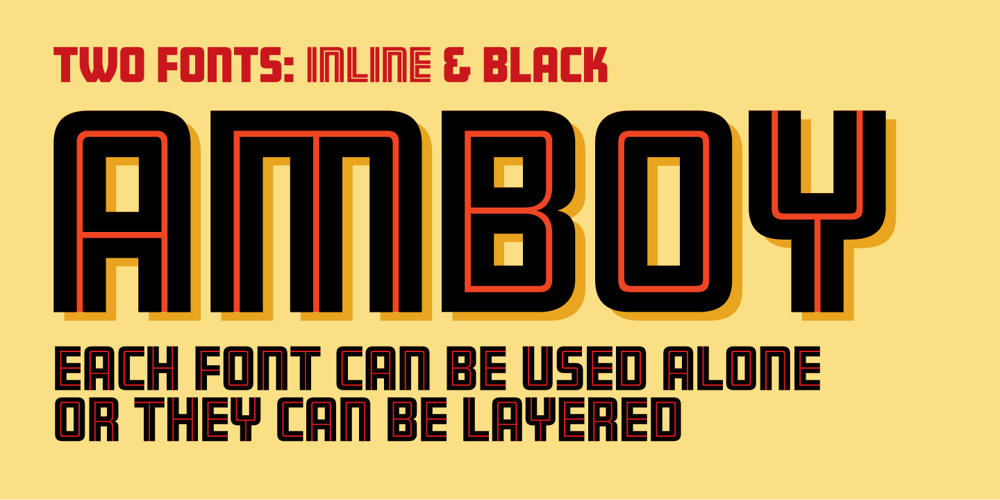
Amboy
Amboy font
Amboy Font Family was designed by Jim Parkinson and published by Parkinson. Amboy contains 2 styles and family package options. Amboy is a two-font family. Amboy Inline and Amboy Black. Amboy Black is a recent addition. It can be used alone, but it is carefully tailored to fit behind the Inline font to add color to the inline. There are alternate characters: A, M & N in the caps and lowercase key positions. Amboy is a square gothic style typical of Mid-20th Century Showcard Lettering. A lettering genre known as “Gaspipe.” Signage samples similar to this still exist on buildings in my home town, Oakland, California. I have designed over a half dozen variations of this form over the years. Including Golden Gate Initials, Matinee, Motel, Hotel and Fresno. Designed in 2001 by Jim Parkinson, Amboy has been refreshed, enhanced, and re-released.